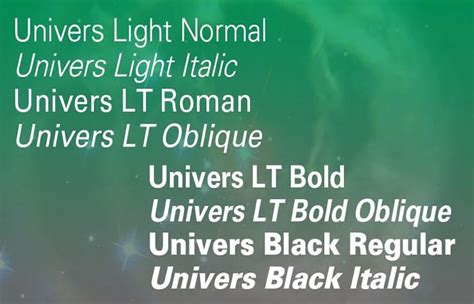
Fonts Like Univers. In this article, we'll look at some stylish univers font alternatives, pairings,. Very few typefaces come with the range of fonts that univers does.
Now, if you are only using one particular weight of univers, we. Web the design of univers is somewhat similar to that of helvetica, as both were based on the 1896 typeface akzidenz grotesk. Web 20+ best fonts similar to univers (2023) just sansĀ® clean modern minimal geometric typeface. Most fonts are available for desktop publishing, web and apps. Web looking for fonts similar to univers? How about some univers font history? Web it's a real powerhouse of a typeface. In this article, we'll look at some stylish univers font alternatives, pairings,. So there's really no universal 'alternative'. Adrian frutiger | linotype | 1957.
In this article, we'll look at some stylish univers font alternatives, pairings,. How about some univers font history? Adrian frutiger | linotype | 1957. Web looking for fonts similar to univers? Very few typefaces come with the range of fonts that univers does. Web the design of univers is somewhat similar to that of helvetica, as both were based on the 1896 typeface akzidenz grotesk. Try, buy and download any typeface from our collection of fonts similar to univers. Most fonts are available for desktop publishing, web and apps. Univers contains an absolutely huge variety of weights and. Web 20+ best fonts similar to univers (2023) just sansĀ® clean modern minimal geometric typeface. Web it's a real powerhouse of a typeface.